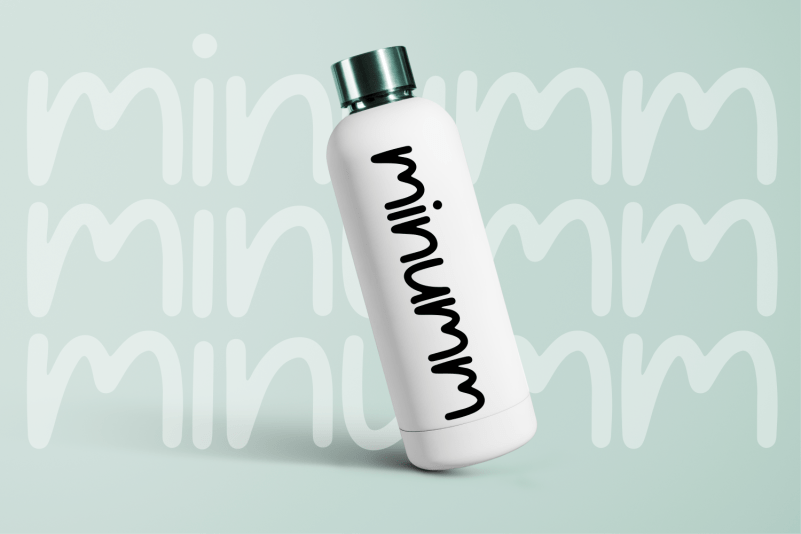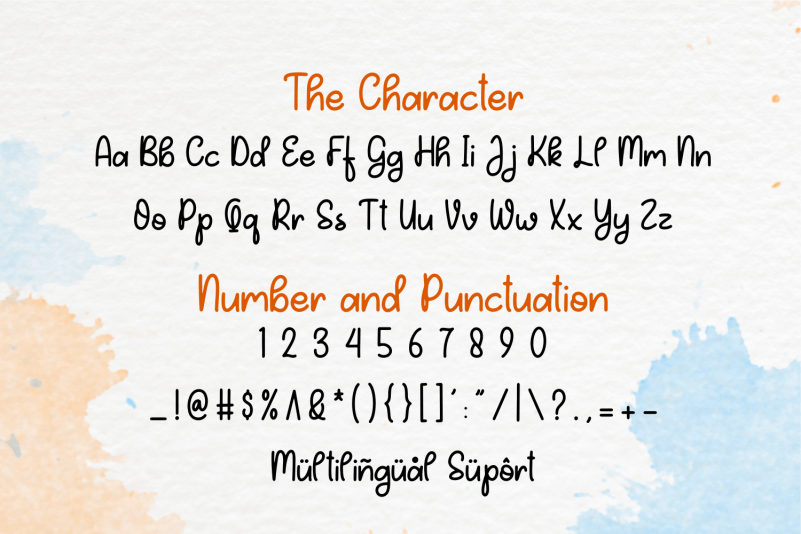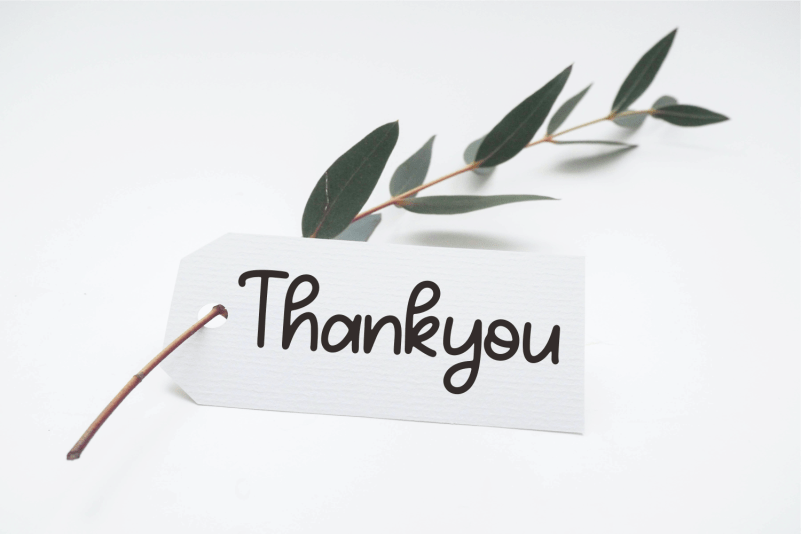
What The Craft Font
What The Craft Display Font is a fancy and elegant handcrafted font created to impress your audience and make your branding shine. Make your projects dance with this elegant and wonderful font wherever you use it. Use it for your headings, logos, ads, printed quotes, packaging, even your website or social media branding.